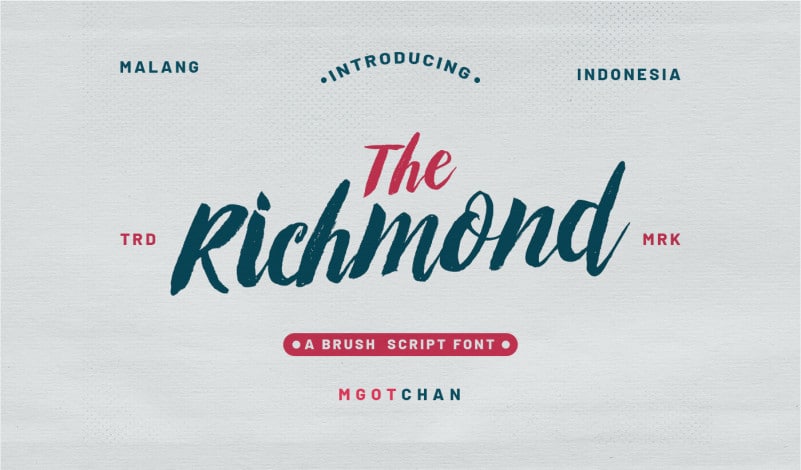
Stylish Script Font
Stylish Script Font is a lovely and timeless handwritten font. It is the best choice for creating eye catching logos, branding and quotes. Every letter has a unique and beautiful touch, which will make your design come alive!